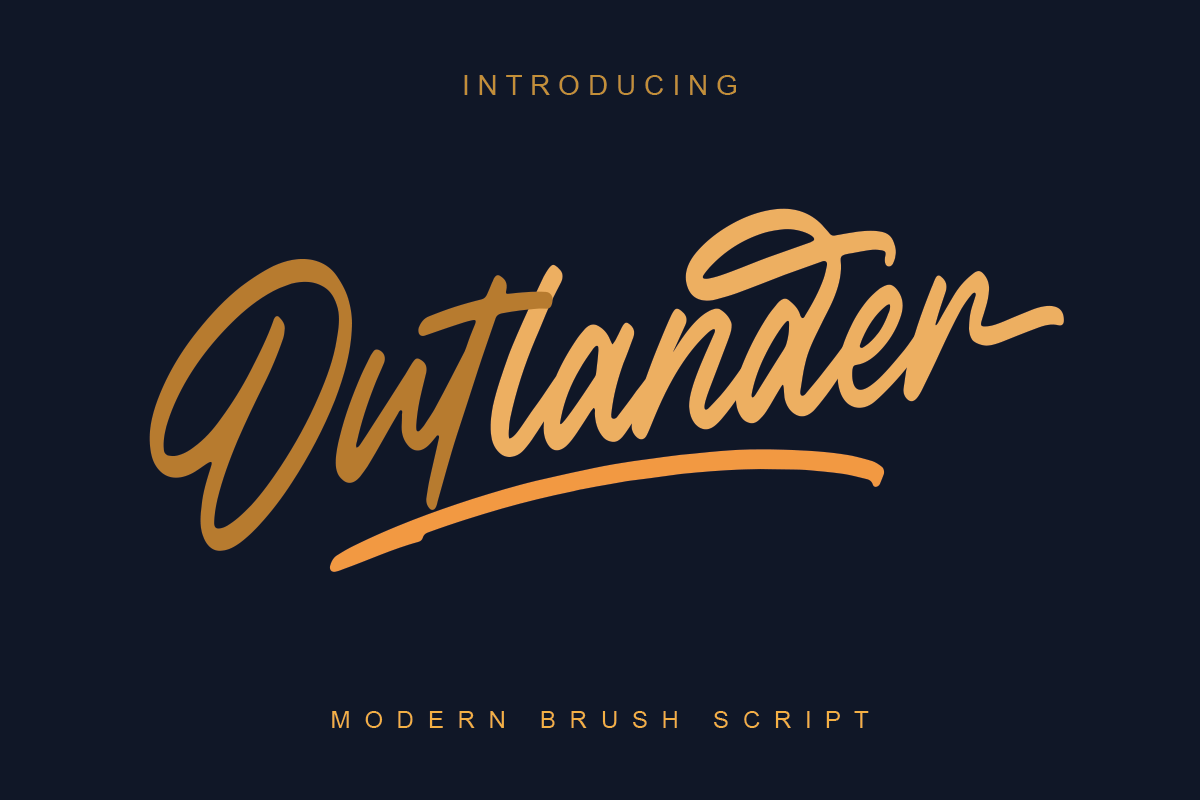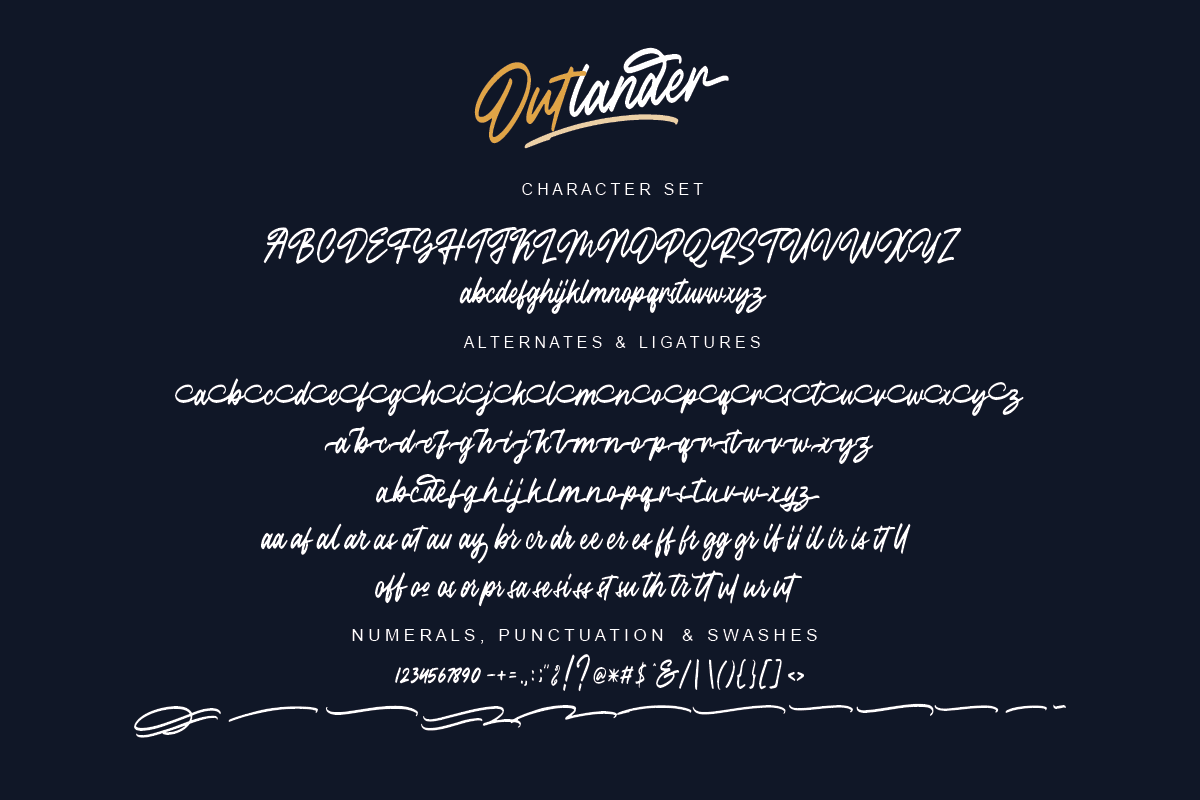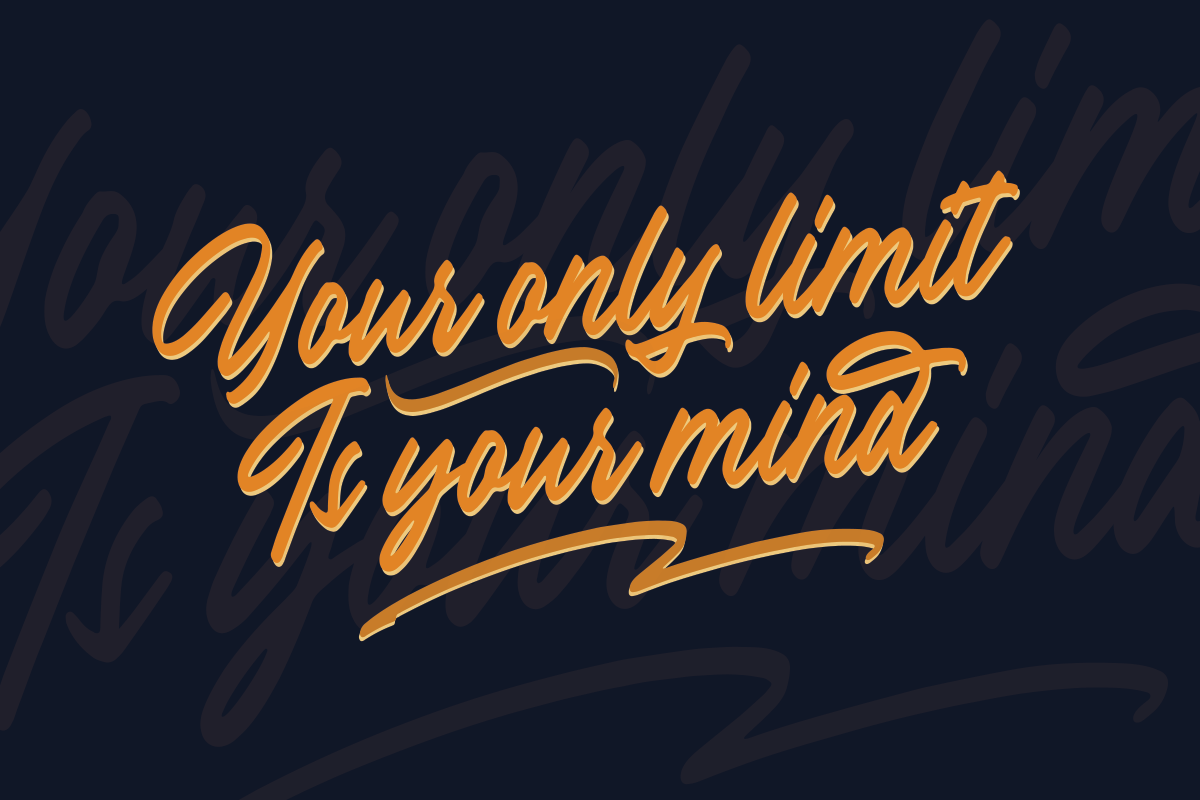
Outlander Brush Script
Outlander Brush Font is a type of script brush created using custom pen brushes. there are 2 types of fonts that have a standard model and italic type, so you can use it as a type of logo, badge, packaging, title, poster, shirt / shirt, and others. Flowing characters are ideal for making interesting messages, to fit your project.
Outlander Brush also has 3 types of open types that you can use to decorate the letters you will use. there are a number of binders that support this font to make it more attractive, and swash which is to strengthen the letters when creating logos.